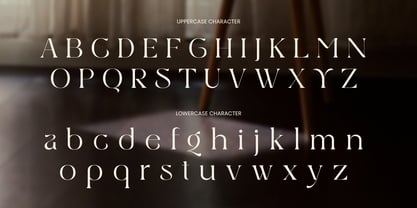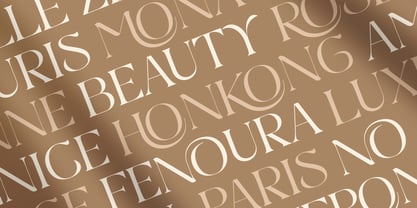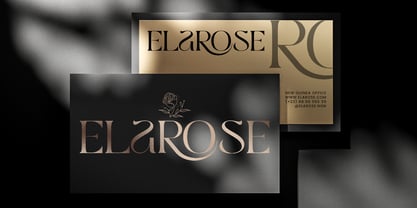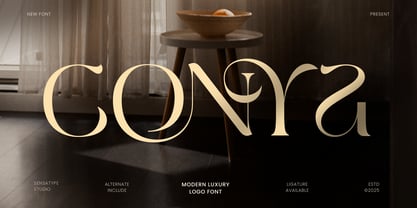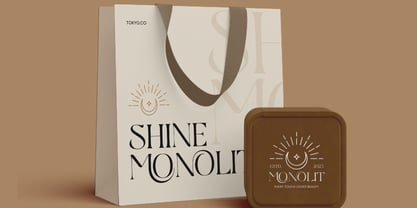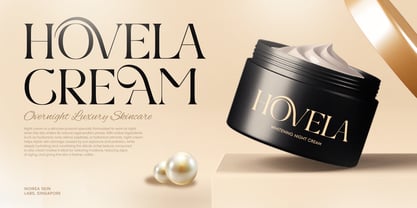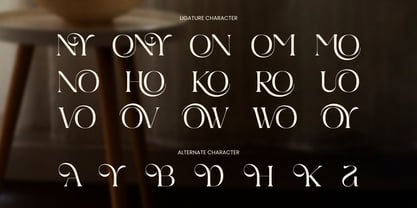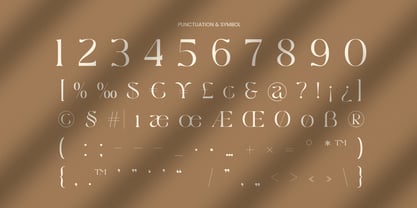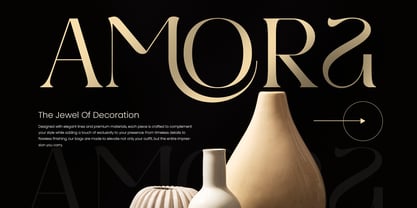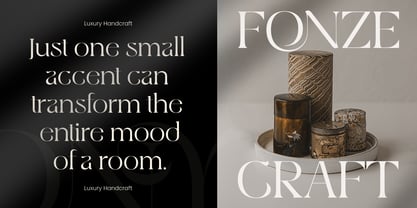
Conya
The Conya Font Family was designed by Zamroni Hamzah and published by Sensatype Studio. Conya contains 1 styles. More about this family
CONYA is a modern luxury logo font designed to elevate your visual identity with elegance and sophistication. With its clean structure, refined curves, and balanced proportions, this font captures the essence of high-end design — perfect for fashion brands, creative studios, and premium packaging.
Inspired by modern minimalism and timeless luxury, CONYA blends simplicity and style seamlessly. Its graceful letterforms bring a touch of exclusivity to logos, invitations, magazines, and digital branding, making every composition feel polished and refined.
Whether used for editorial headlines or subtle branding, CONYA offers a professional and versatile appearance that adapts beautifully across print and digital platforms.
CONYA – Modern Luxury Logo Font Features
• Elegant and modern serif typeface for luxury branding
• Perfect for logos, magazines, invitations, and packaging
• Clean letterforms with refined contrast and balance
• Great for fashion, lifestyle, and creative industries
• Uppercase, lowercase, numerals, and punctuation included
• OpenType features for enhanced typography control
Create timeless elegance with CONYA – the ultimate modern luxury font for branding, fashion, and editorial design.